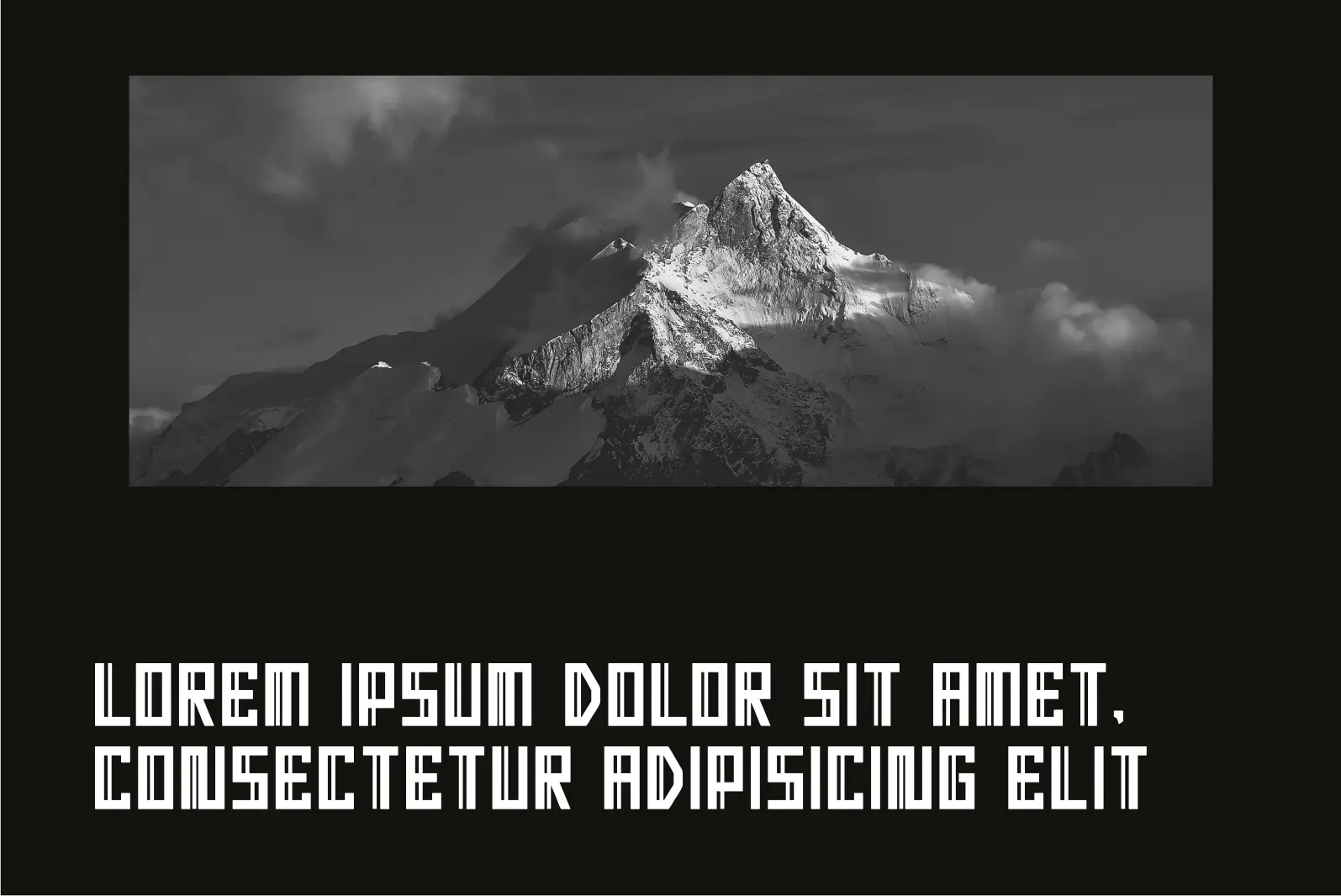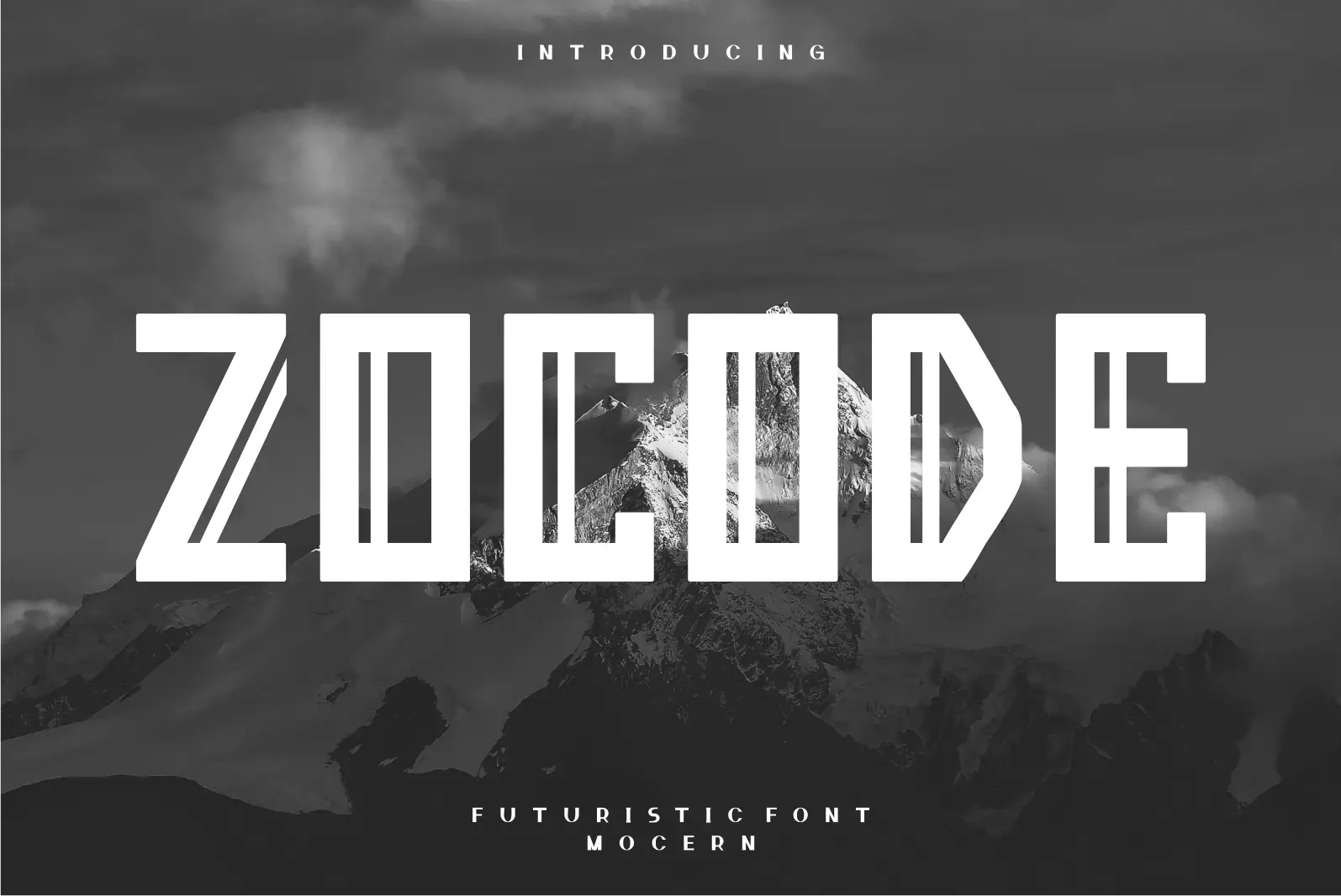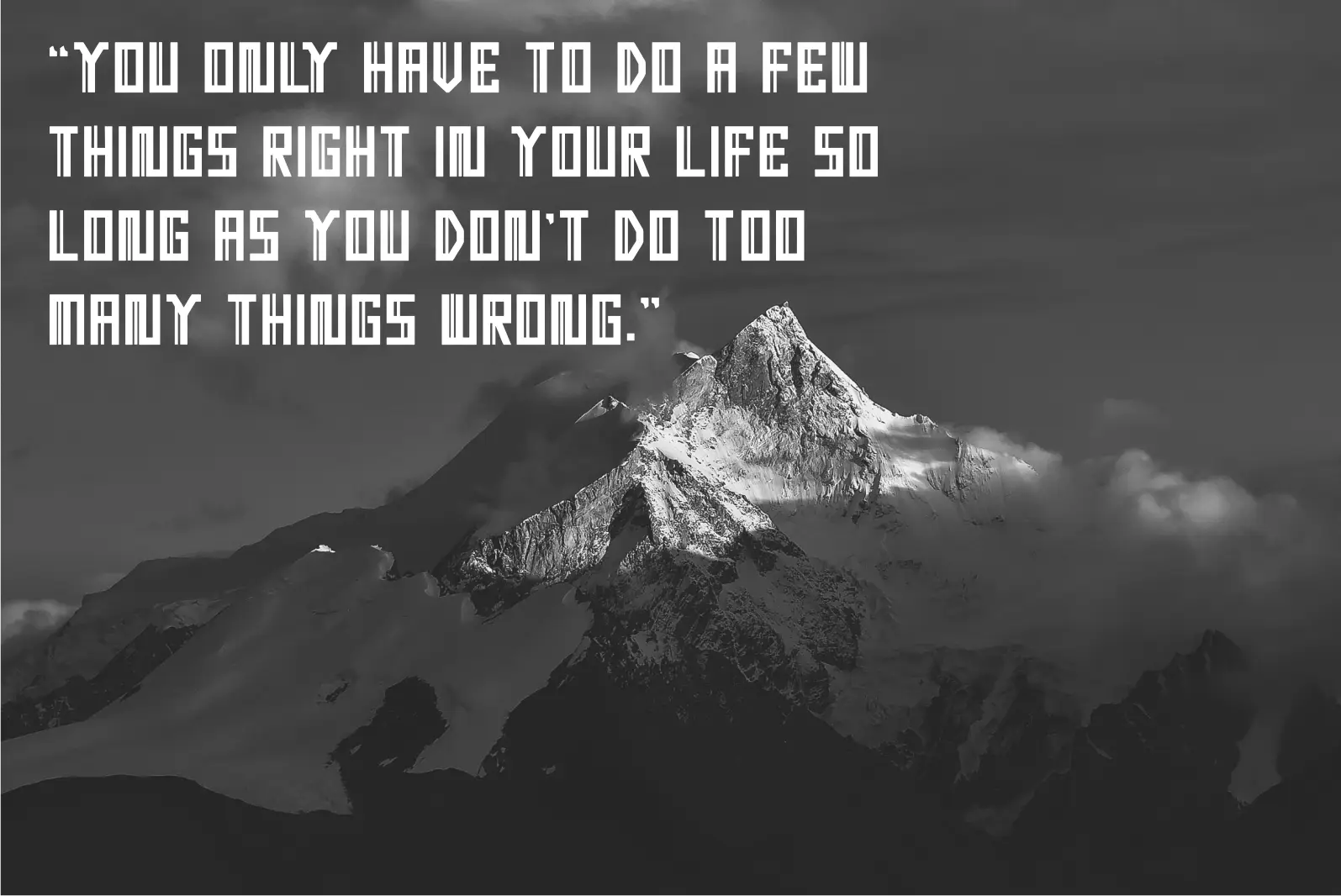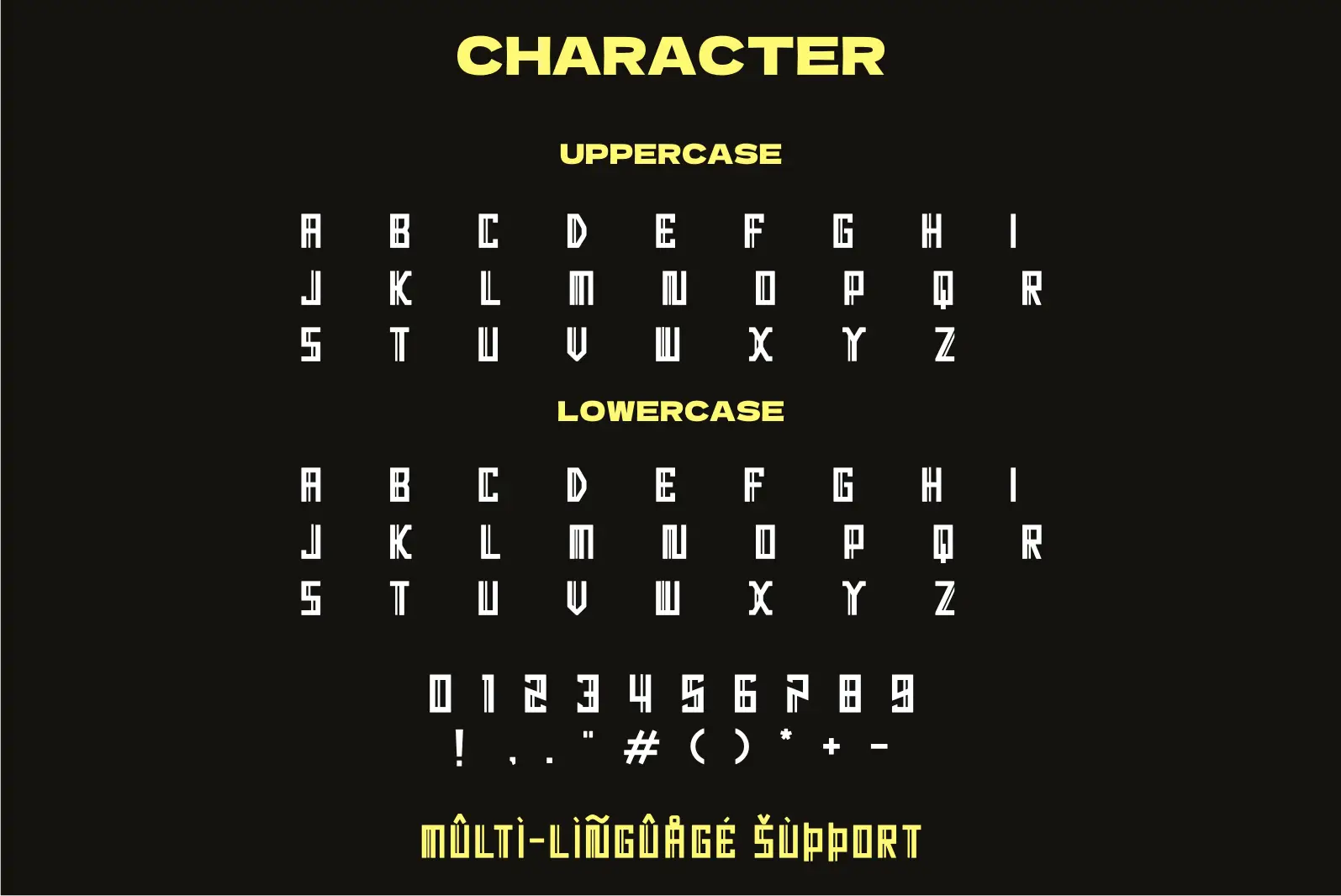
Zocode Display Font
The Zocode Display Font is a striking typeface designed for bold statements in both digital and print media. With its unique character shapes and modern aesthetic, this font is perfect for branding, logos, and eye-catching headlines.
• Stylish display typeface with a contemporary look
• Multiple weights for versatility in design
• Uppercase and lowercase characters included
• Supports a wide range of languages
• Ideal for creating standout logos and branding materials
• Use in web design for impactful headings and banners
• Perfect for print projects like posters and flyers